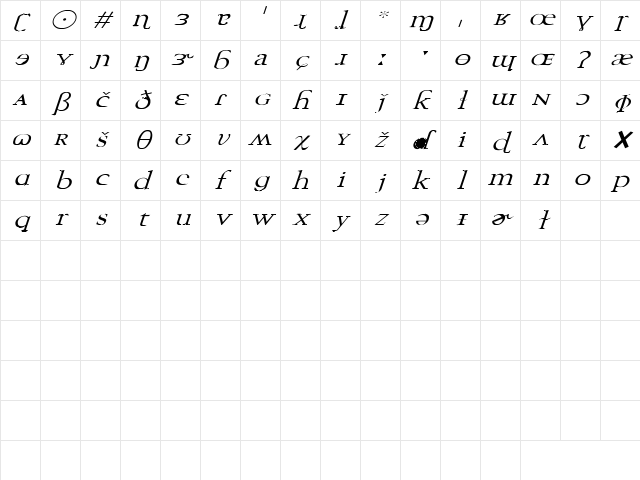
Complete Mustang 5 Italic glyph index. Displaying only characters natively supported by Mustang 5 Italic font.
Mustang 5 is a composed and adaptable typeface that performs quietly and consistently across a wide range of design contexts. The slanted form adds forward momentum and visual energy.